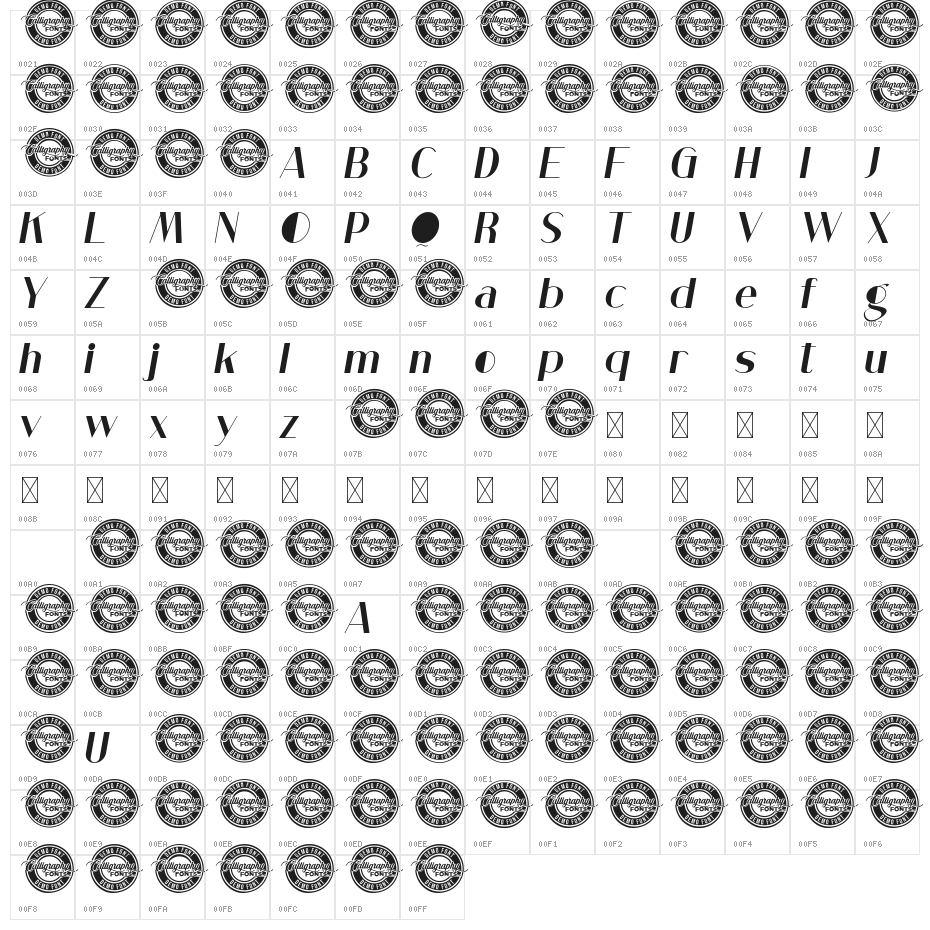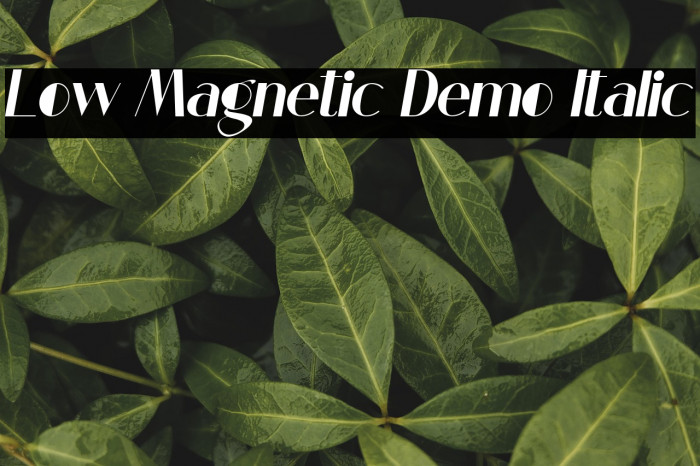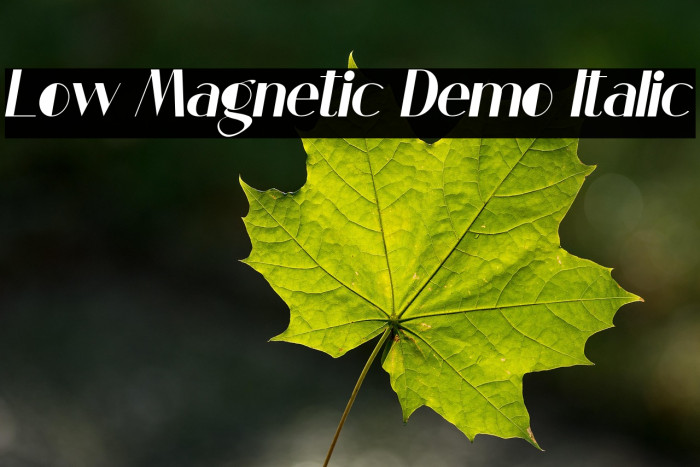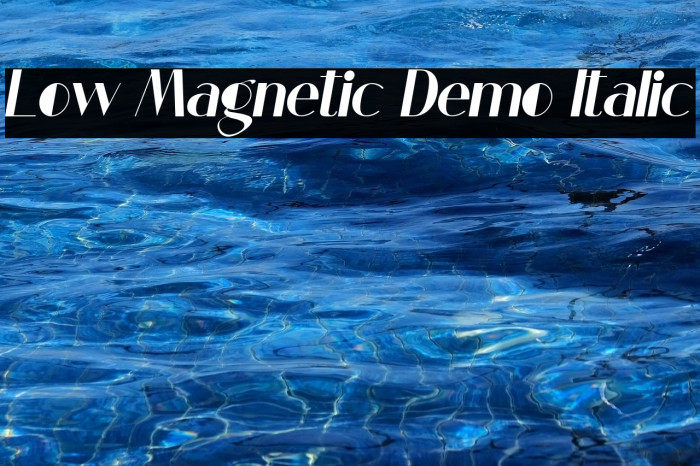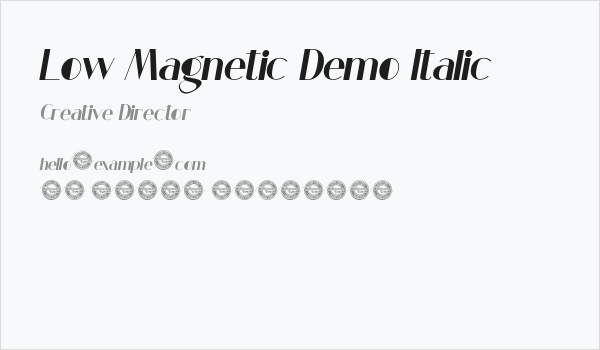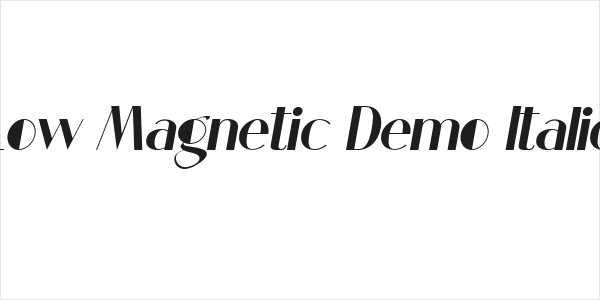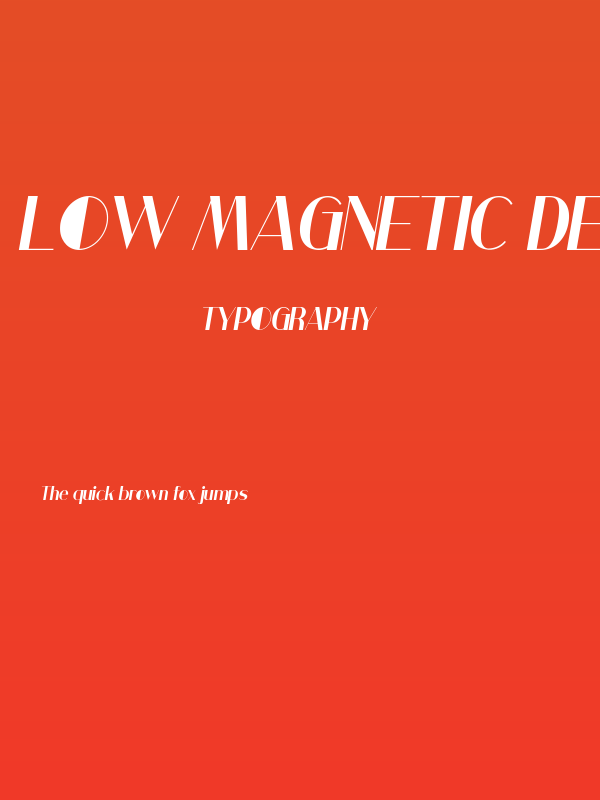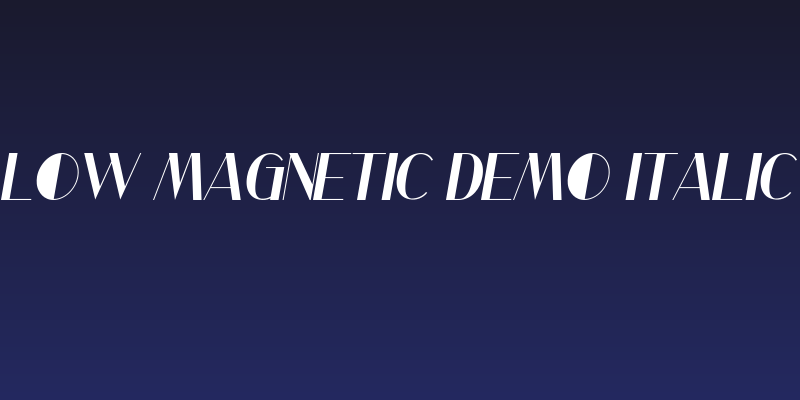
Low Magnetic Demo Italic Font
Low Magnetic Demo Italic Description
This font features an elegant and modern design with a distinct italic slant, giving it a dynamic and sophisticated appearance. The characters are crafted with a high contrast between thick and thin strokes, enhancing its stylish and contemporary feel. The uppercase letters are bold and assertive, while the lowercase letters maintain a graceful flow. The special characters are designed to complement the overall aesthetic, making it suitable for a variety of creative applications. Its unique style is perfect for projects that require a touch of elegance and modernity.
| Overall Style | Modern, Elegant |
| Use Case | Headlines, Logos, Editorial Design |
| Proposed Projects | Ideal for branding, editorial design, fashion magazines, and luxury product packaging. |